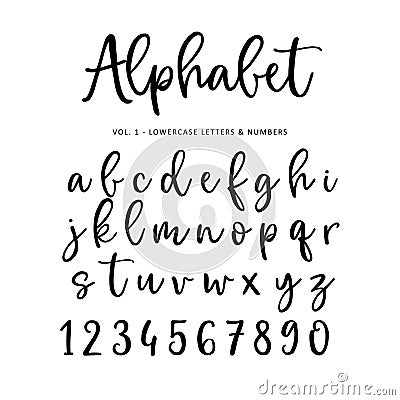
Hand Drawn Vector Alphabet, Font. Isolated Letters And Numbers Written With Marker Or Ink. Brush Script.
Hand drawn vector alphabet, font. Isolated letters and numbers written with marker or ink. Brush script. #131438729
Hand drawn vector alphabet, font. Isolated letters and numbers written with marker or ink, bh script.